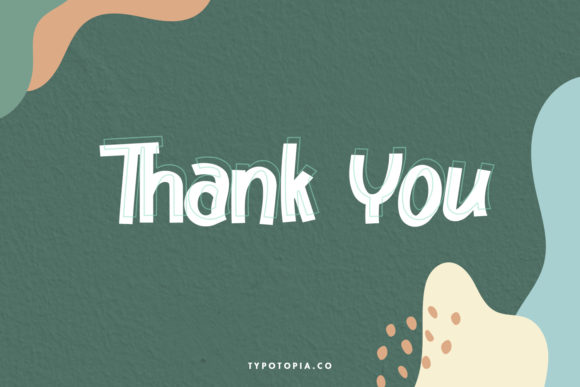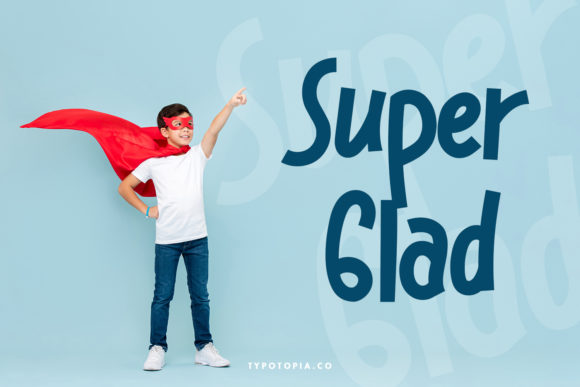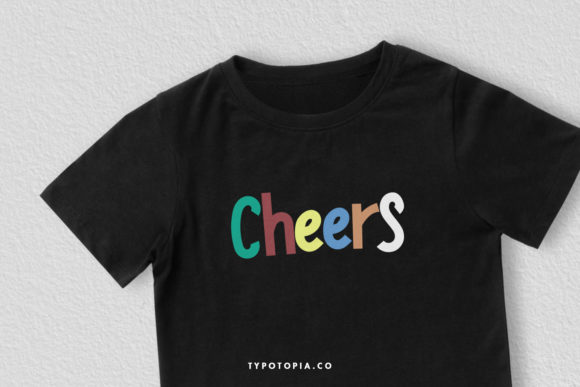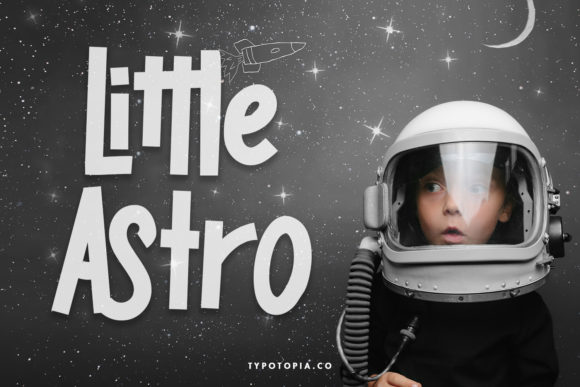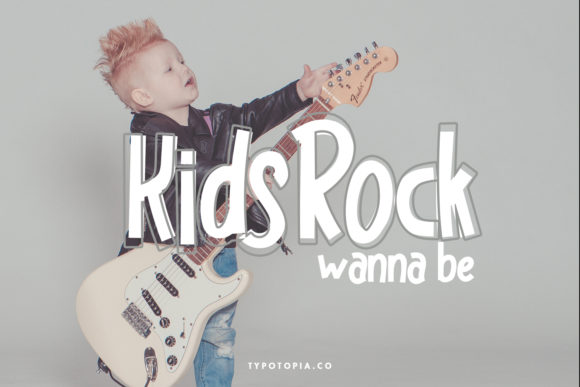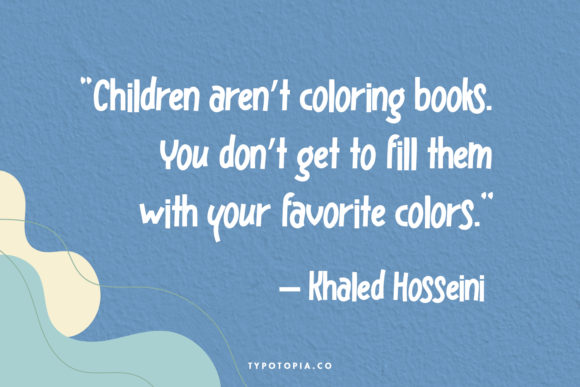
The Bigloss Font: A Bold and Chunky Love Affair
I’ll never forget the design project that led me to fall in love with the Bigloss font. I was working on a branding campaign for a trendy new coffee shop, and I needed a font that would make their logo stand out. After hours of scrolling through font libraries and trying out different combinations, I stumbled upon Bigloss. Its bold, chunky letters immediately caught my attention, and I knew I had found the perfect fit.
An Honest Review: What I Love (and What to Watch Out For)
So, what makes Bigloss so special? Here are a few things that I absolutely love about this font:
• ✨ Versatility: Bigloss is incredibly versatile, making it perfect for a wide range of design projects, from logos and branding to posters and social media graphics.
• ✅ Readability: Despite its bold and chunky style, Bigloss is surprisingly easy to read, even at smaller sizes.
• 💥 Expressive: Bigloss has a playful, energetic vibe that’s perfect for brands that want to make a statement.
Of course, no font is perfect, and Bigloss does have a few quirks to watch out for:
• 🤔 Limited use in body text: While Bigloss is amazing for headlines and titles, it’s not the best choice for longer blocks of body text.
• ⚠️ Kerning issues: As with any font, you may need to adjust the kerning to get the best results, especially when using Bigloss at smaller sizes.
One of the best things about Bigloss is its range of OpenType features and glyphs. These allow you to customize your text and add extra visual interest to your designs. Here are a few tips for accessing these features:
The Story Behind Bigloss
Bigloss was designed by a talented font designer who wanted to create a font that would make a statement. With its bold, chunky letters and playful vibe, Bigloss is the perfect choice for designers who want to add a bit of personality to their designs.
Is Bigloss suitable for body text? While Bigloss is amazing for headlines and titles, it’s not the best choice for longer blocks of body text. For body text, consider using a font with better readability.